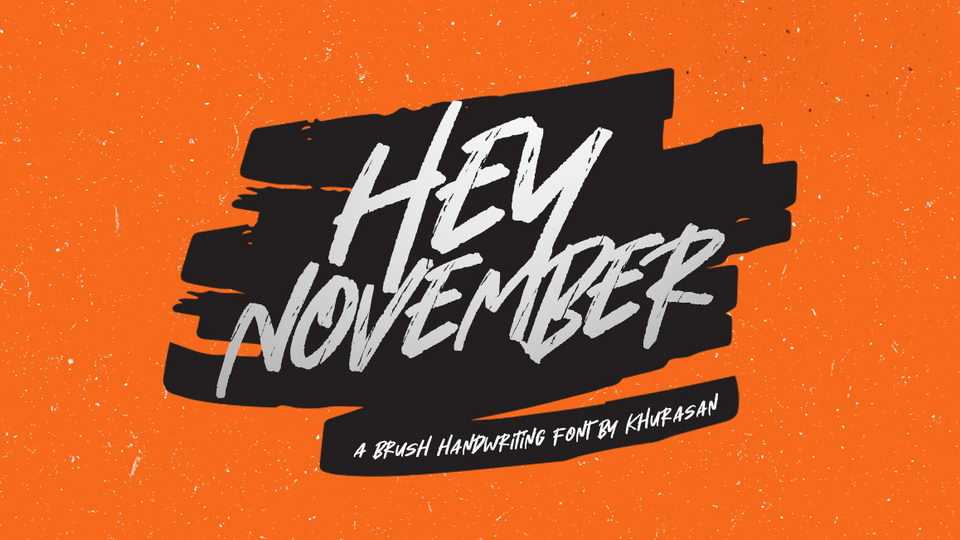
Download Hey November font, a classy and powerful hand lettered brush script with a natural brush texture. Hey November looks perfect for logos, branding, t-shirts and apparel, social media, packaging and other creative projects.